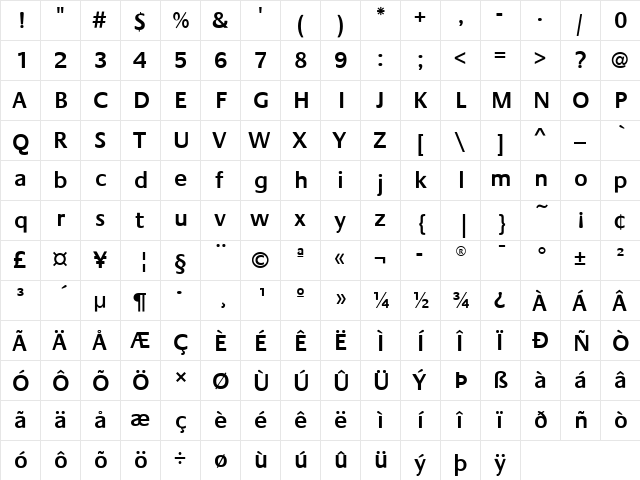
Praxis LT Semibold Regular
Design Context for Praxis LT Semibold Typeface
Praxis LT Semibold takes a measured approach to typography — its balanced proportions and neutral character make it a reliable workhorse for both digital and print work. Its bold stroke weight gives it real presence on the page.